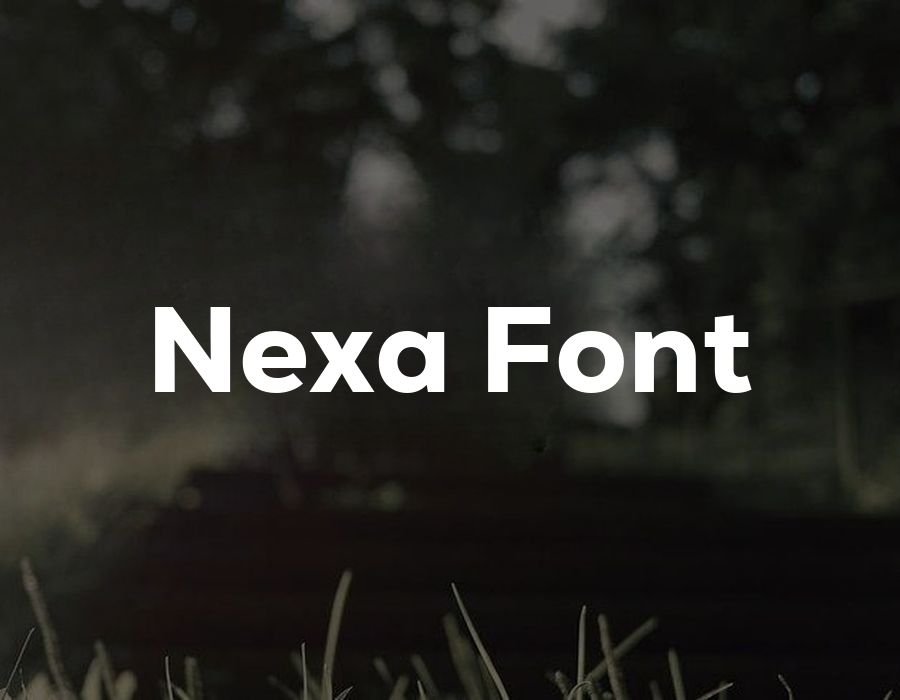
Nexa Font is a versatile typeface that comprises nine weights and 36 fonts. The Nexa font family is known for being legible and readable. They are commonly used in different web designs, hard surfaces, fabrics, Logos etc. The Nexa font was released by Fontfabric foundry and has procured immense acknowledgement since its release.
It is a perfect and professional sans-serif typeface that gives a modern touch to design. If you want to provide a unique and contemporary touch to your design, Nexa font would be a great choice. The fonts similar to Nexa font incorporates Arial Font, Isidora Font and many others.
Nexa is an extended font family comprises many classes including Nexa Thin Italic, Nexa Extra Light Italic, Nexa Book, Nexa Regular, Nexa Bold Italic, Nexa Heavy, Nexa Black, Nexa Text etc. You can also create quality based Nexa text Logos through Nexa Font Generator free of cost.
Usage of Nexa Font
Nexa font is a commonly used sans-serif typeface that can be applied in different graphic designing projects. It would go best for Logos, Posters, web, digital projects, Hard surface etc. Because of extensively used in many places, the font released its different versions.
You can use this font for the promotion of your website or on the title because of having the highest legibility score. It can likewise be used on headlines and texts that appear in both minimum and maximum variation.
Designer | Svet Simov |
Style | Sans-Serif |
Nexa font is a versatile typeface being used in many places. You can use this font for different purposes, for instance, in Logos, headlines, Posters, Hard surface, text blocks, Titles, etc.
What Type of Font Is Nexa?
It is a Sans-serif typeface comprises 36 fonts and nine weights. The font was released by Fontbaric foundry. It provides a professional and modern touch to design and has been used in many places.
Is Nexa a Good Font to Use?
It is a professional typeface that would be a great choice to use in your projects. It increases readability factor and gives a clean and modern touch to your design.